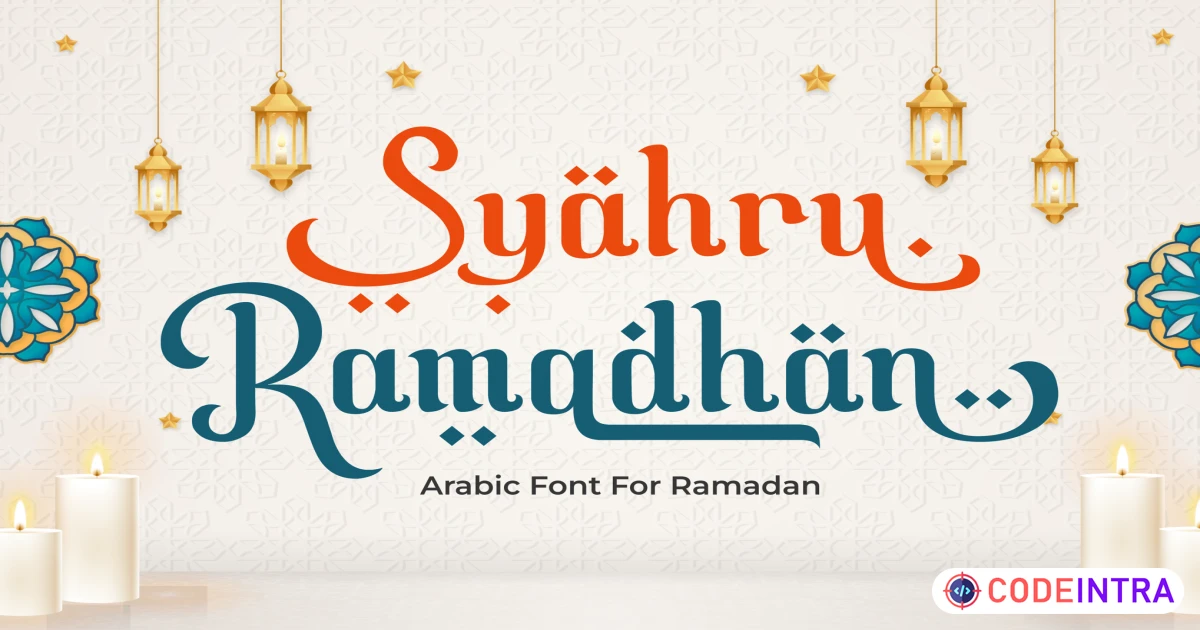
Syahru Ramadhan - Arabic Font For Ramadan
Discover "Syahru Ramadan" – A Divine Handwritten & Calligraphic Font for Islamic Celebrations
Immerse yourself in the beauty of Islamic artistry with Syahru Ramadan, a stunning handwritten and calligraphic font designed to capture the spirit of Ramadan, Eid al-Fitr, Eid al-Adha, Islamic New Year, Maulid, and other sacred occasions. With graceful curves, elegant strokes, and over 100 alternate characters, this font brings an authentic touch to your creative projects, blending tradition with modern aesthetics.
Ideal for graphic designers, branding experts, and content creators, Syahru Ramadan is perfect for Ramadan-themed invitations, social media posts, Islamic merchandise, mosque event posters, and greeting cards. Whether you're designing for personal projects or professional branding, this font ensures a sophisticated and spiritual feel that resonates with the Muslim community worldwide.
Syahru Ramadan enhances visibility across digital platforms, making it an excellent choice for Islamic typography, Arabic calligraphy fonts, Ramadan fonts, Eid fonts, Islamic event designs, and handwritten Arabic-style fonts. With its smooth alternates and multilingual support, this font offers limitless design possibilities for any Islamic celebration.
• Standard & Multilingual glyphs.
• 100+ Stylistic Alternates & Ligatures